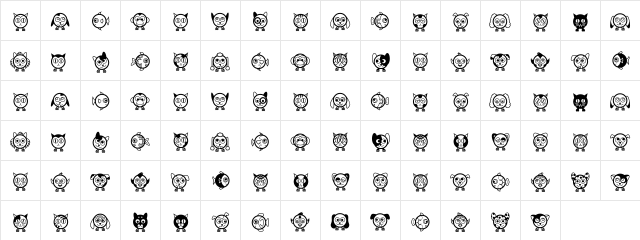
LD Symbol Pals Regular Free Font
LD Symbol Pals Regular
Design Context for LD Symbol Pals
LD Symbol Pals is a composed and adaptable typeface that performs quietly and consistently across a wide range of design contexts.